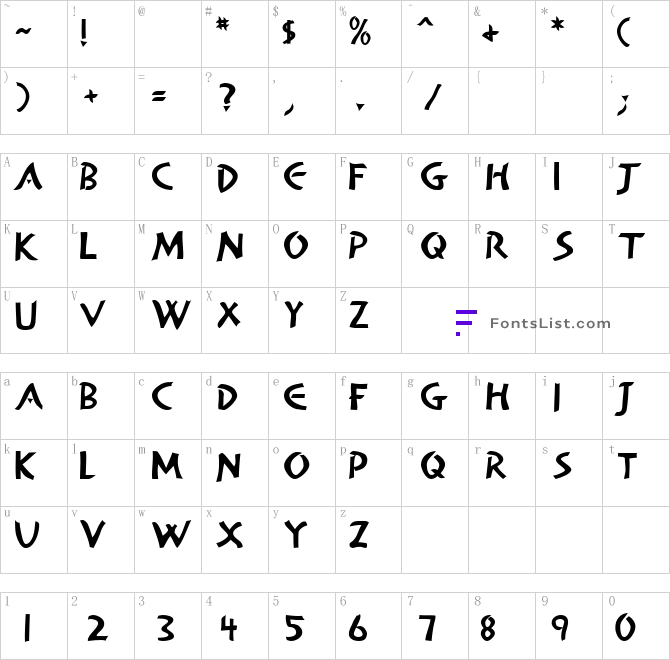
- Font Name:Alan Den
Alan-Den.ttf is a very beautiful artistic font, Alan-Den.ttf is widely used in the design and printing of various books and pictures,Alan-Den.ttf has a strong visual impact,Alan-Den.ttf is a commonly used font in newspapers, magazines and books, and is used in posters, e-commerce Poster design, store design, logo design, font design and other fields.Alan-Den.